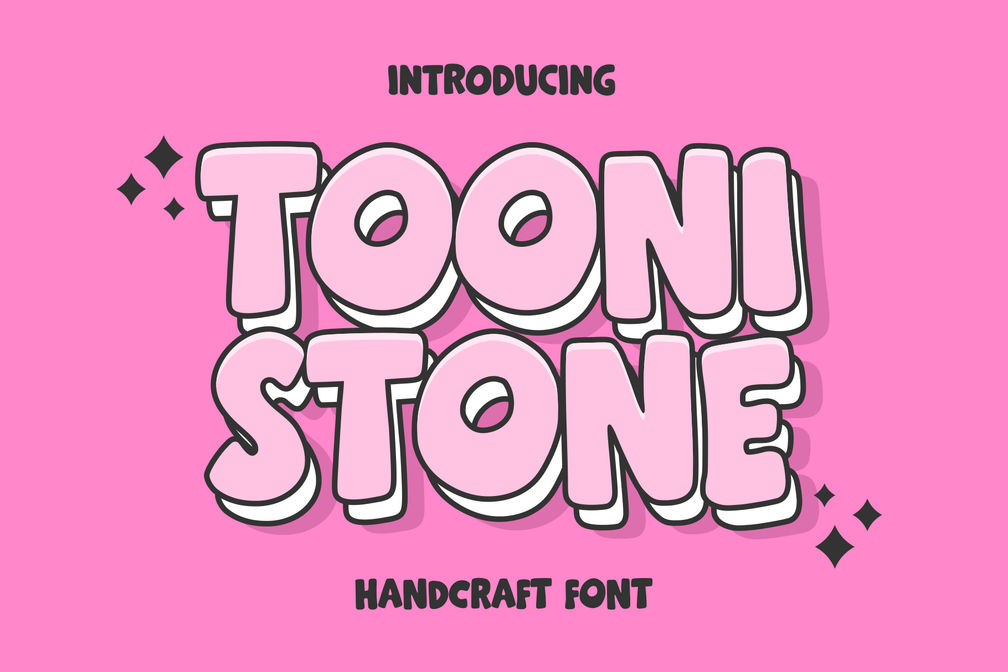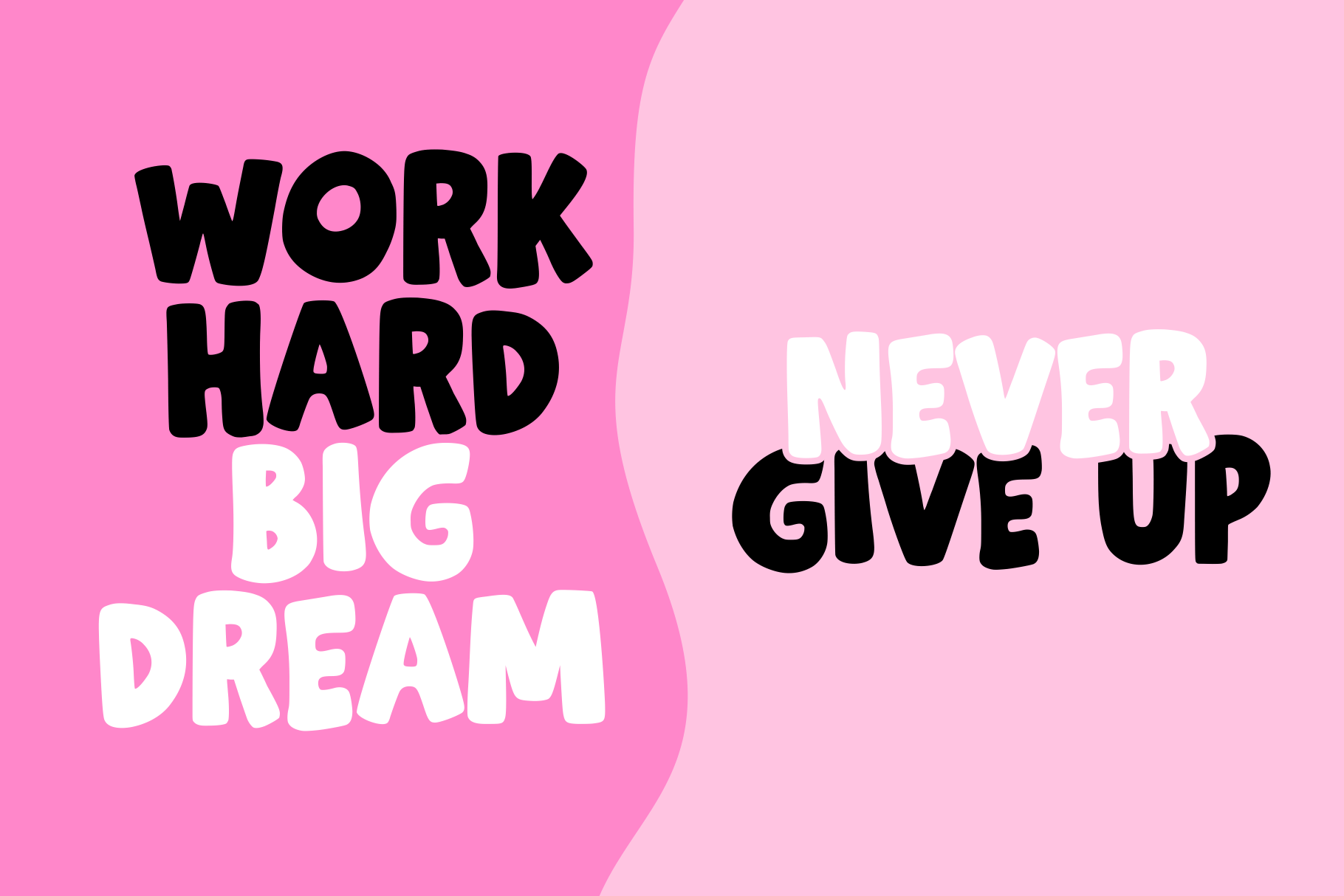
Toonistone Handcraft
Cute font with children’s characteristics and bold, suitable for designs related to children, such as story book titles, posters, children’s illustrations and others.